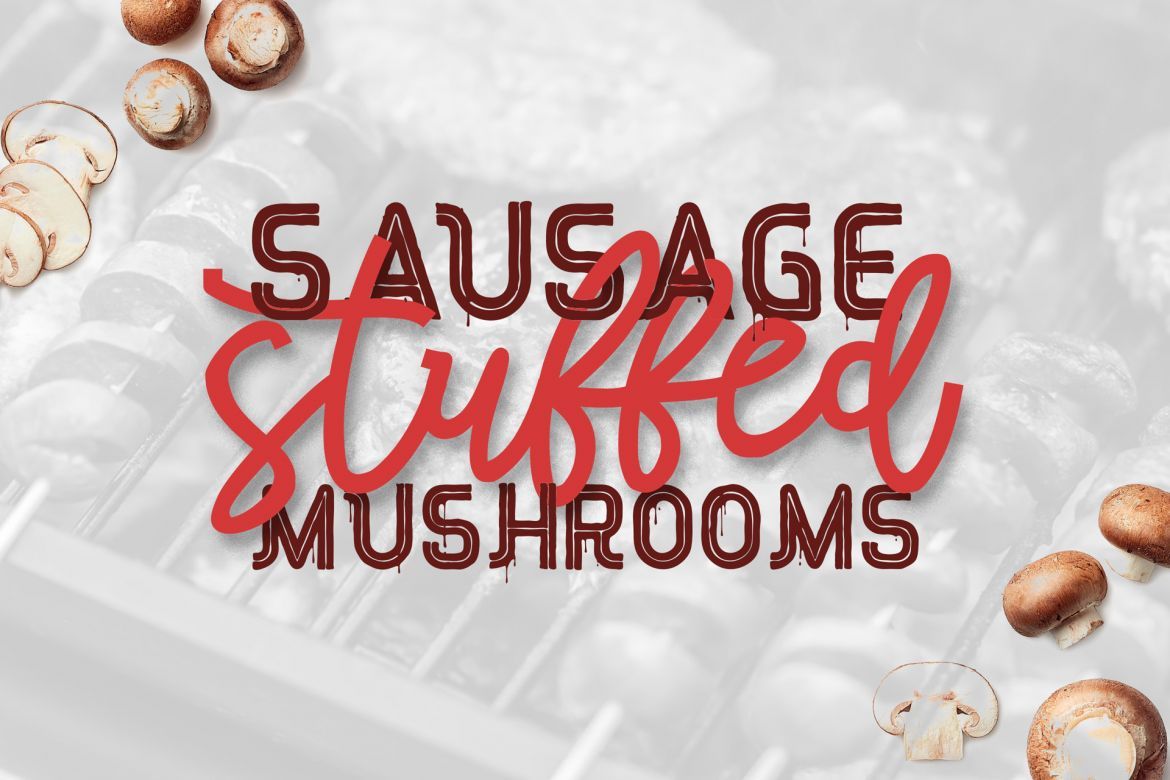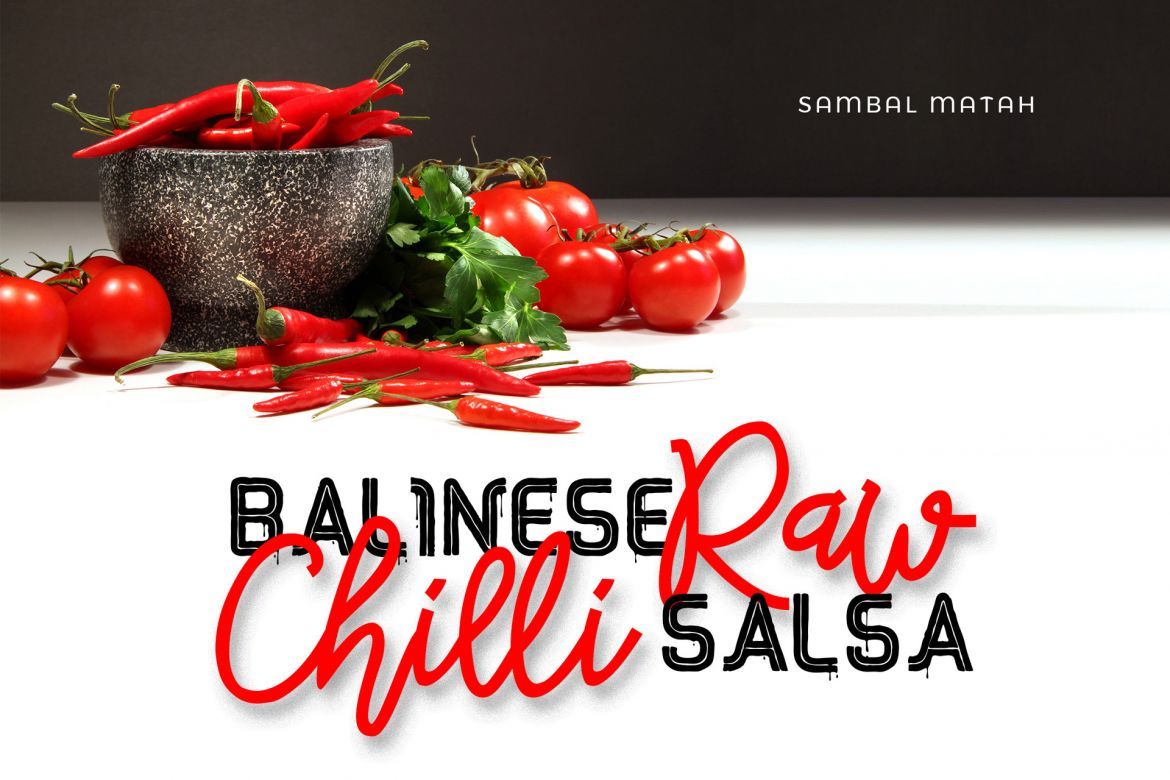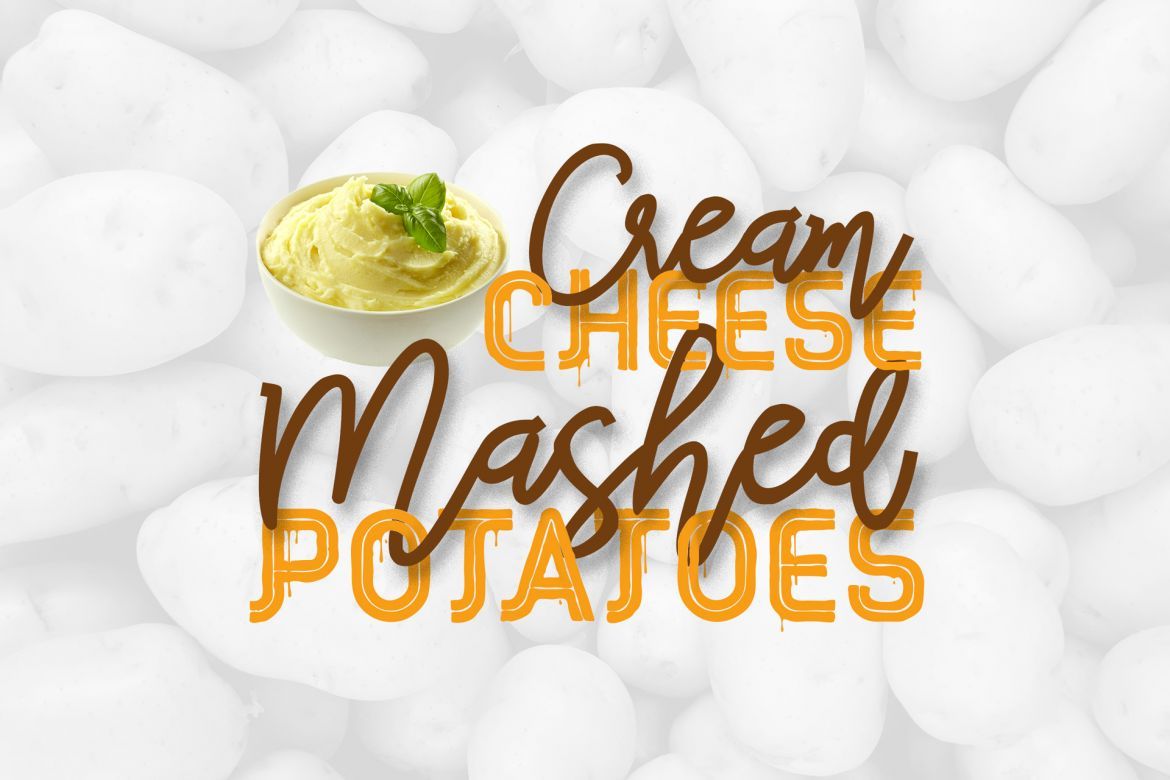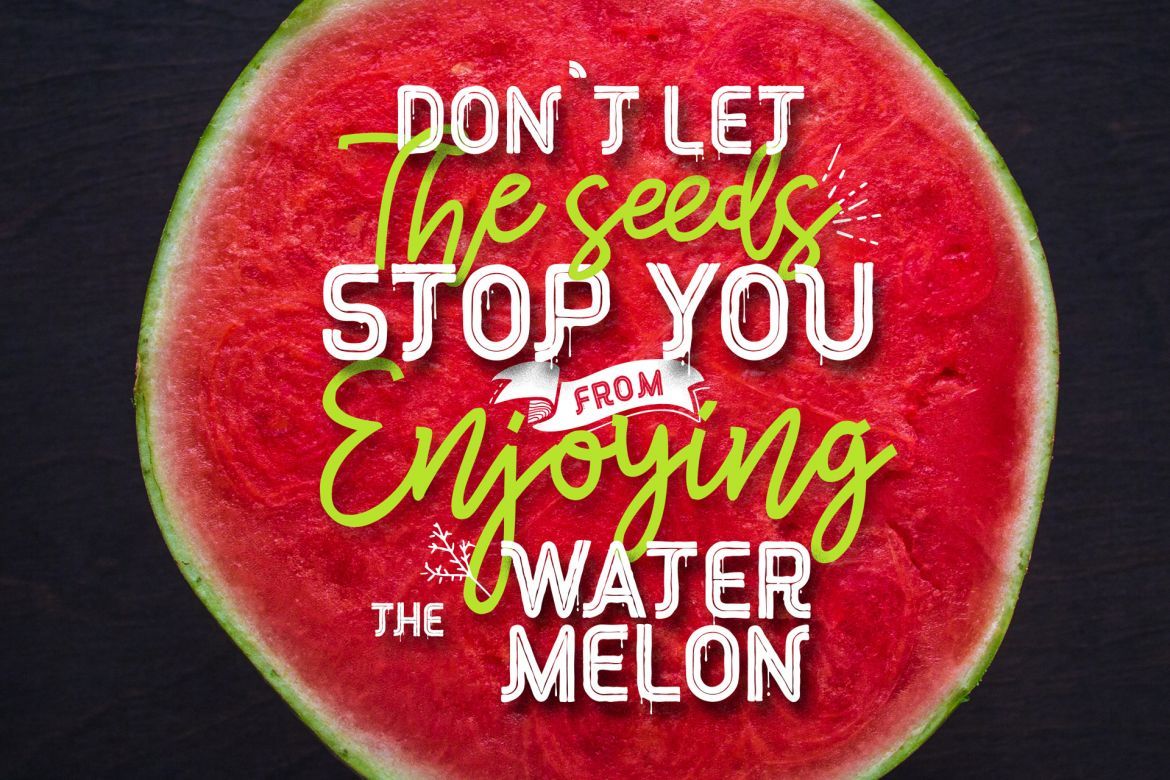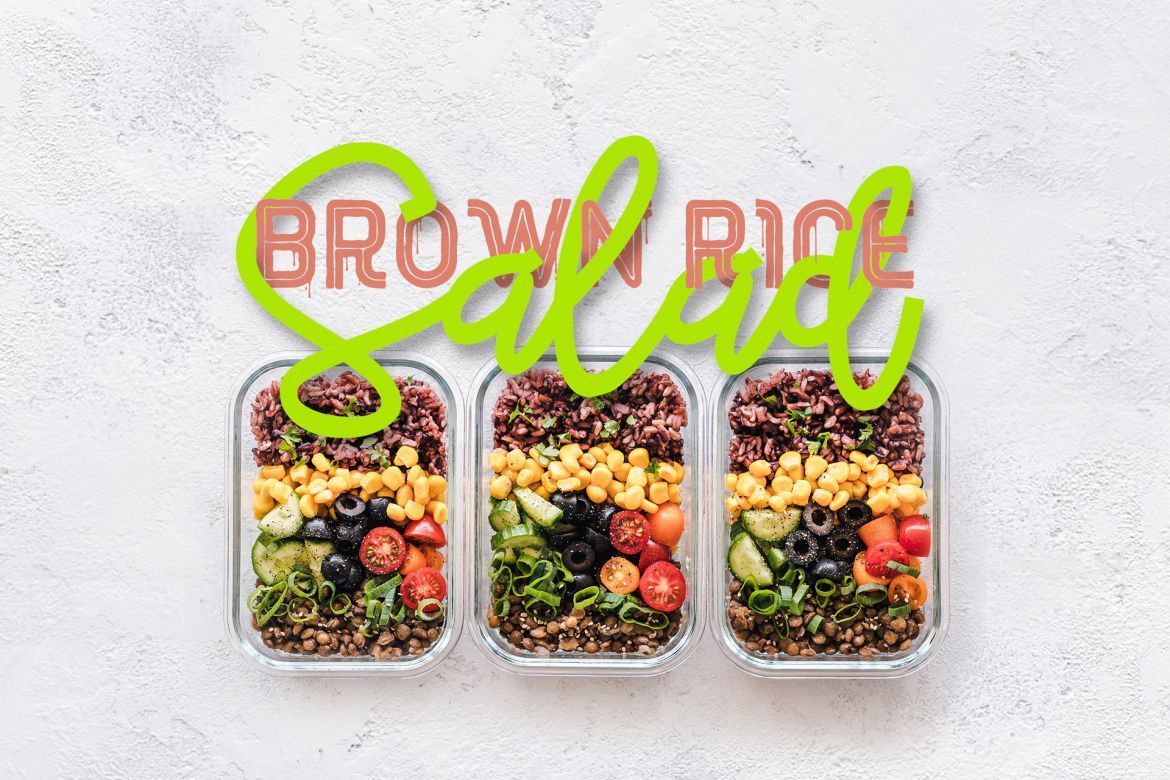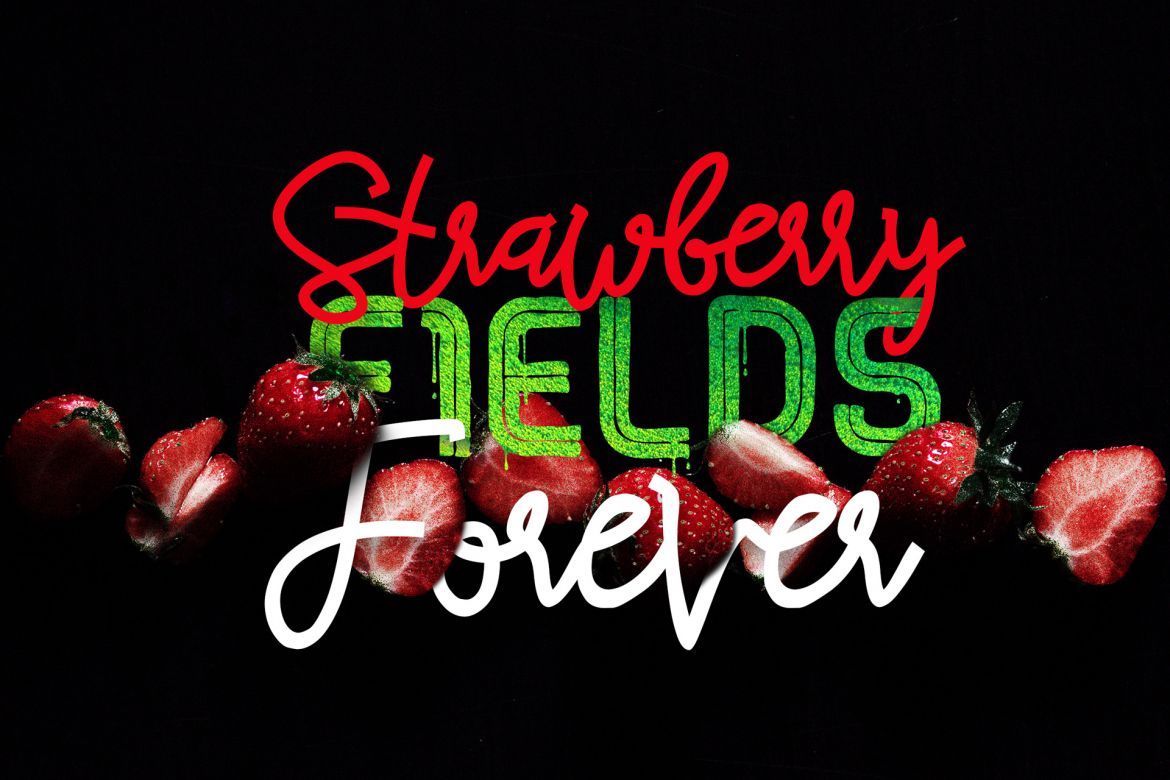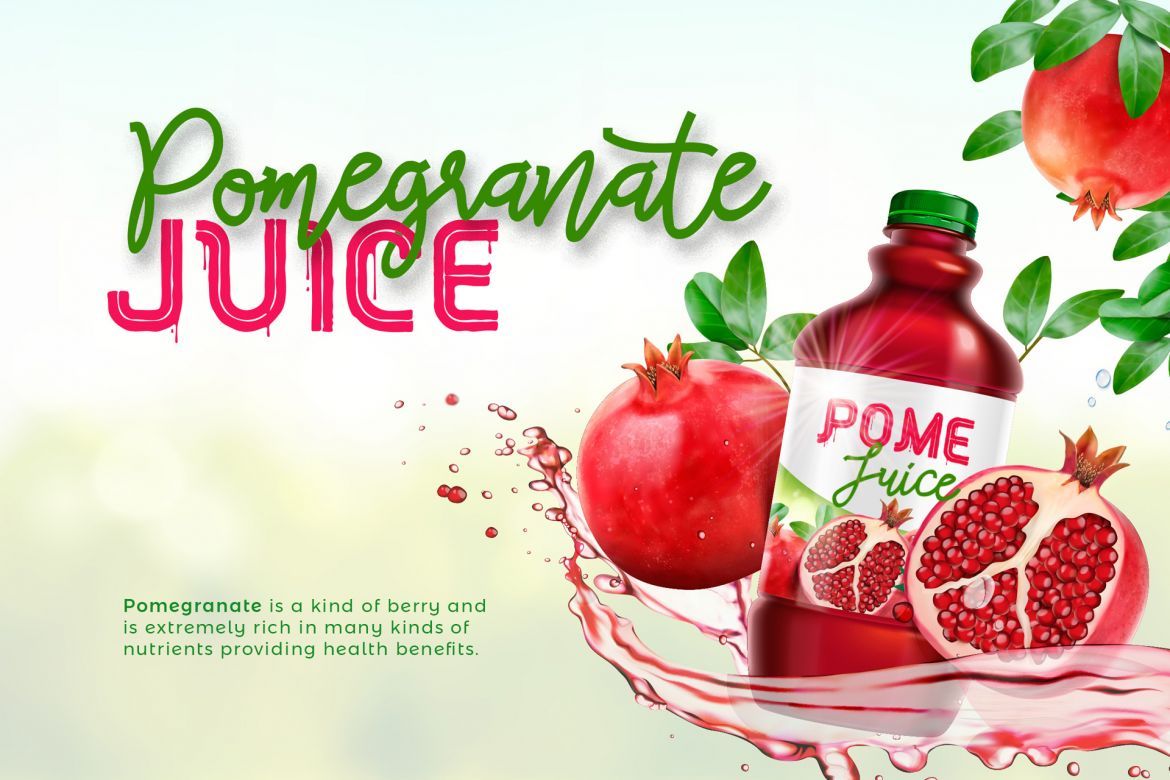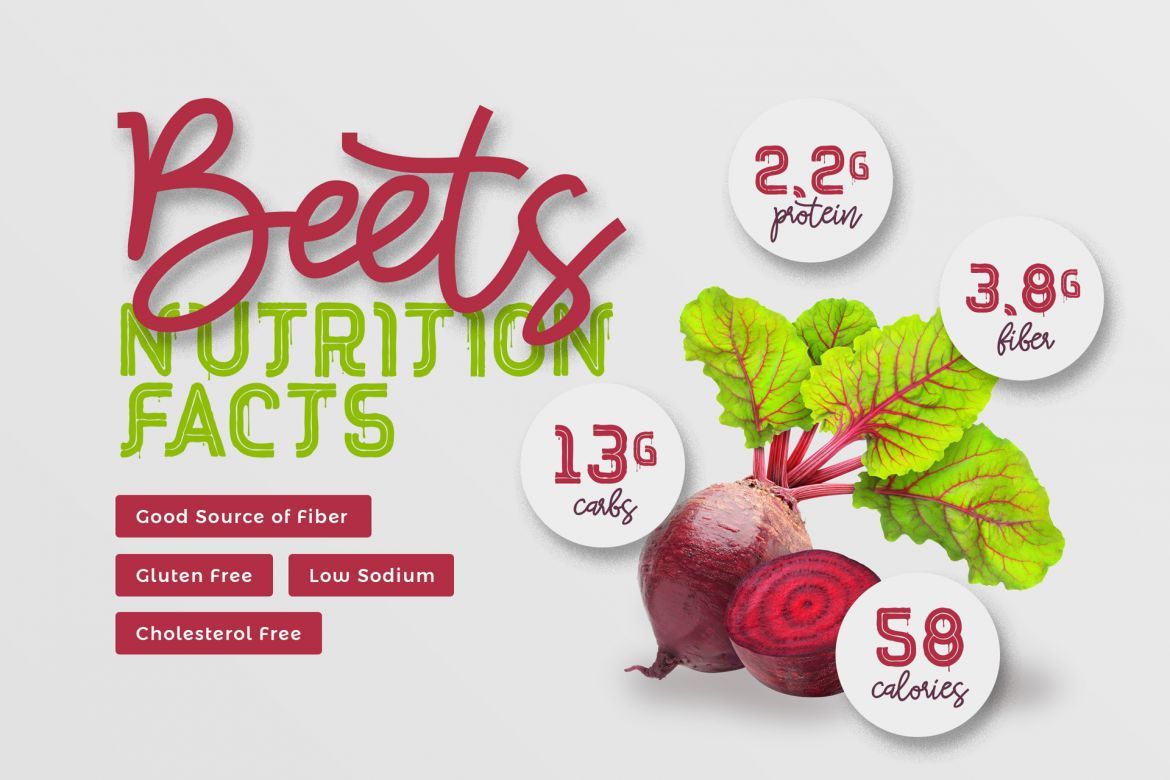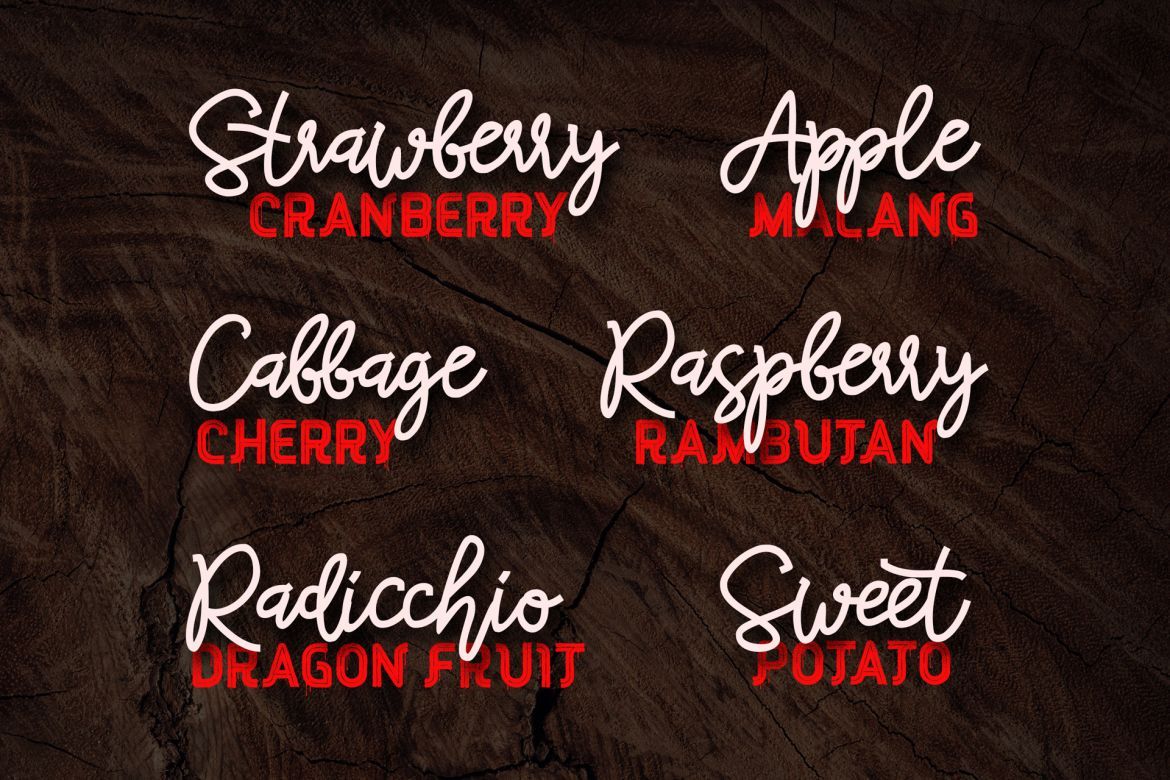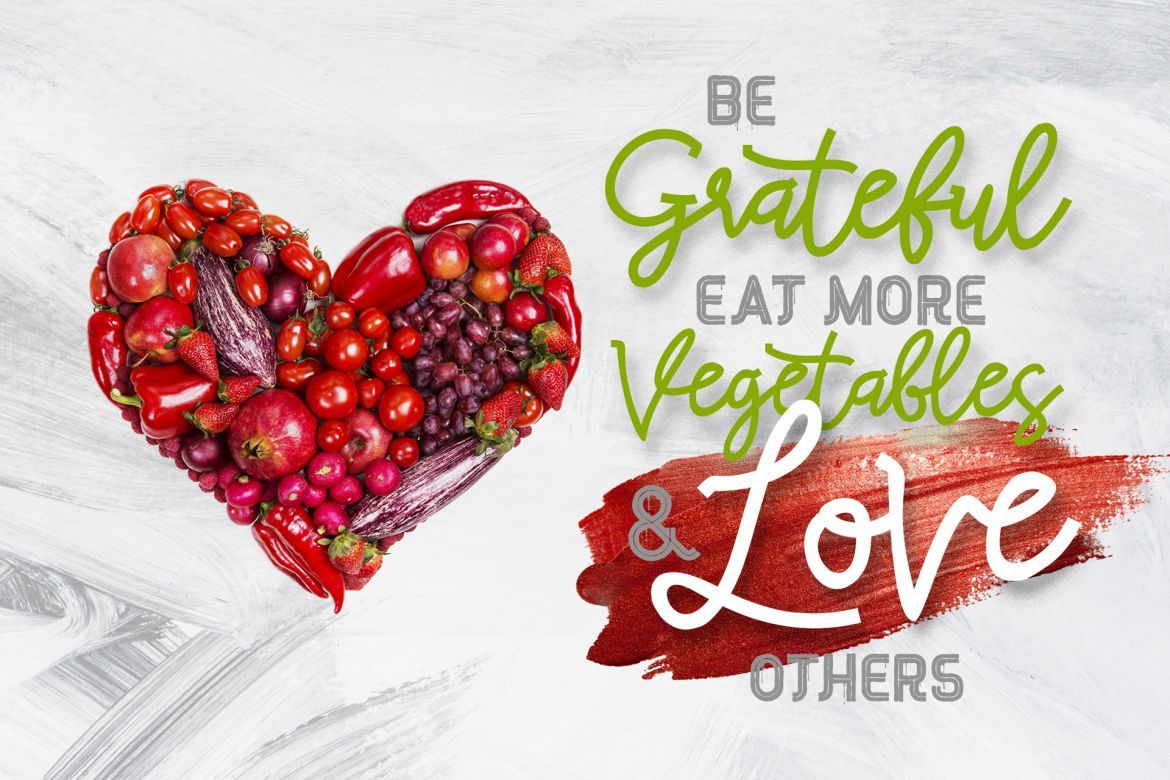
Red Peppers Font Duo
Looking for a delicious script font? πŸ˜‹
We're proud to introduce Red Peppers Font Duo, a delicious new Font Duo that makes sweet designs!
Red Peppers – Delicious and script font with a perfect combination font pair, but it still has a natural-looking appearance
Red Peppers perfect for branding projects, headlines, posters, packaging, product labels, print, menu board, wall art, social media post, quotes, and so much more!
2 FONTS ( As Opentype and Truetype - .otf and .ttf ) : Red Peppers Regular (uppercase only complimentary typeface which also supports international languages) Red Peppers Script (a casual, arty hand script consisting of upper and lowercase letters, punctuation and numerals)
Red Peppers Font features 250+ glyphs and alternate characters. including alternates, ligatures and multiple language support. Please feel free to contact me for further notes and request update
• alternate, ligature, number, punctuation & symbols
• delicious script font
• multi language support